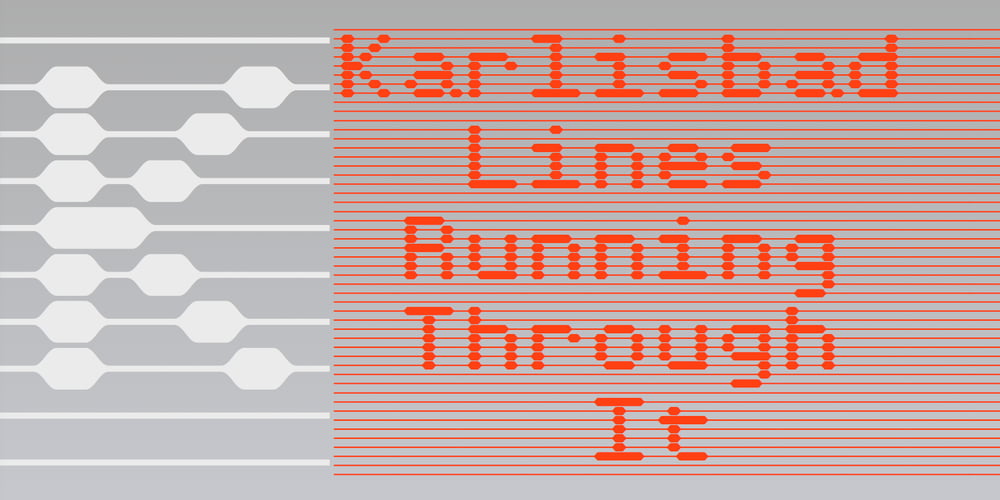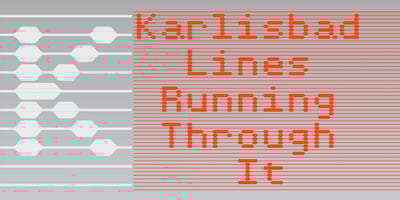
Karlisbad Font Family was designed by Robert Schenk and published by Ingrimayne Type. Karlisbad contains 3 styles and family package options. Karlisbad is a monospaced font in which lines expand and contract to form letters. The No-Lines styles can be used alone but it was their use in layers that inspired their creation. They can be used to give the letters a different color than the lines or to create an outline or hollow-letter effect.